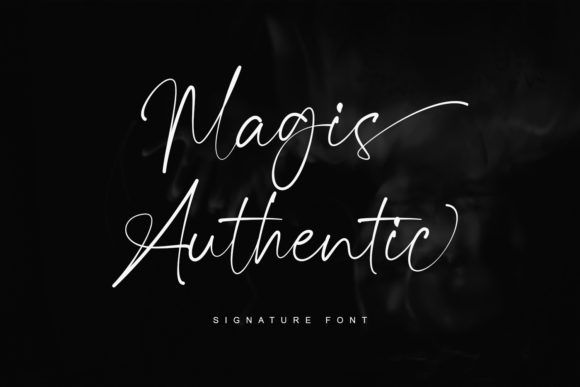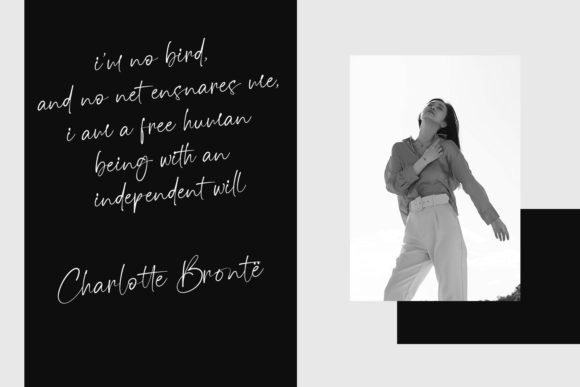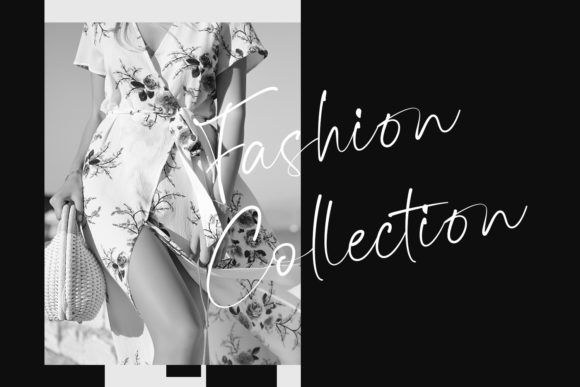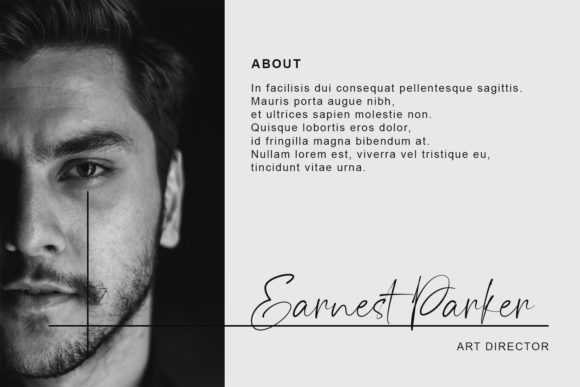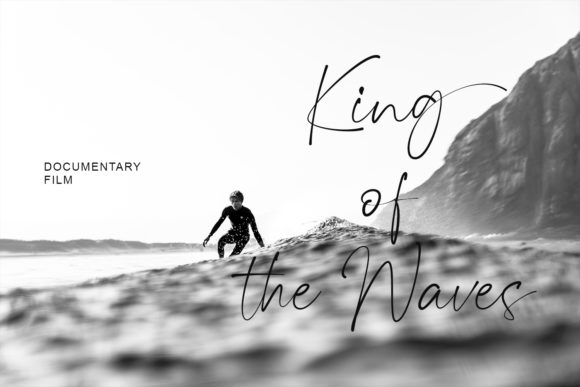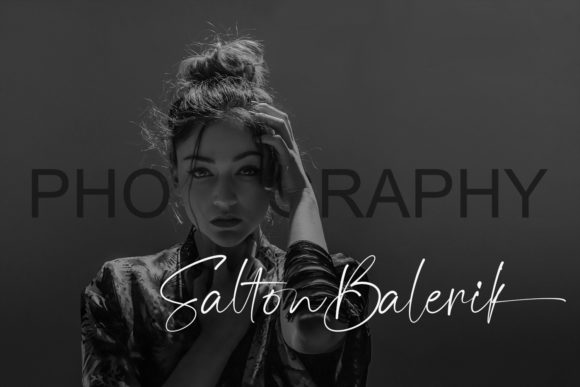
About Magis Authentic Font
Magis Authentic is a thin and elegant handwritten font that adds a touch of sophistication to any design project. Its sleek and graceful letterforms make it perfect for a wide range of applications, from logos and branding to invitations, stationery, social media posts, and more.
With its versatile style, Magis Authentic can elevate your designs and give them a polished and professional look. Whether you’re creating wedding designs, advertisements, product packaging, or labels, this font will bring a sense of elegance and refinement to your project.
Magis Authentic is thoughtfully designed, paying attention to every detail to ensure its authenticity and beauty. Its thin strokes and delicate curves create a harmonious flow that exudes sophistication and class. The font’s elegant and refined appearance makes it suitable for a variety of design purposes.
Whether you’re a professional designer or a creative individual working on personal projects, Magis Authentic offers a versatile and stylish option. Its timeless elegance and thin, delicate letterforms make it a go-to choice for those seeking a font that exudes sophistication and refinement.
Embrace the beauty of Magis Authentic and let it enhance your designs with its elegance and grace. From logos and branding to invitations and social media posts, this font will bring a touch of class and authenticity to your creative projects.